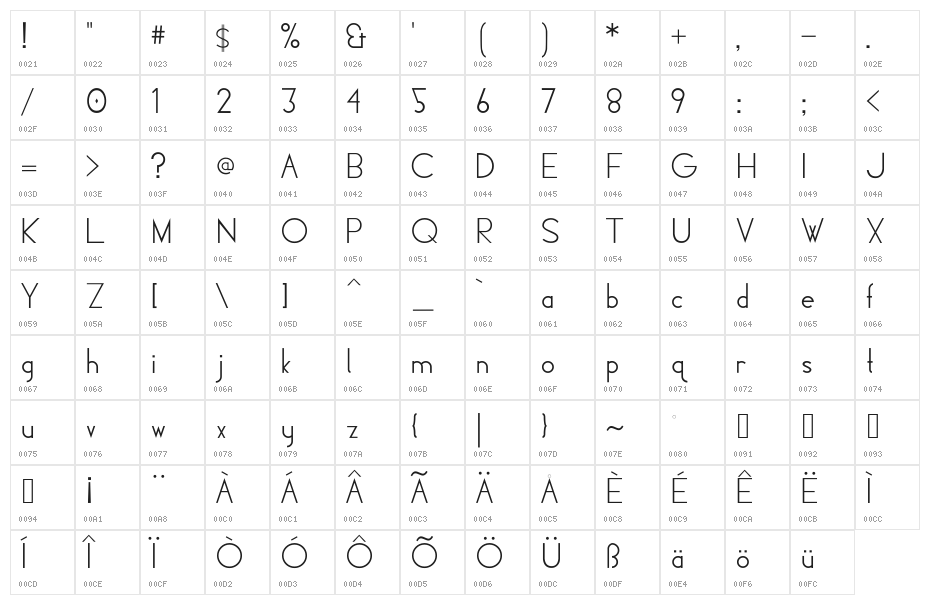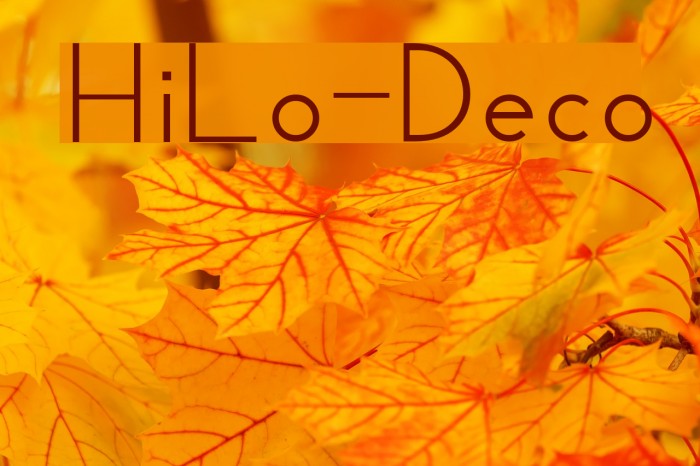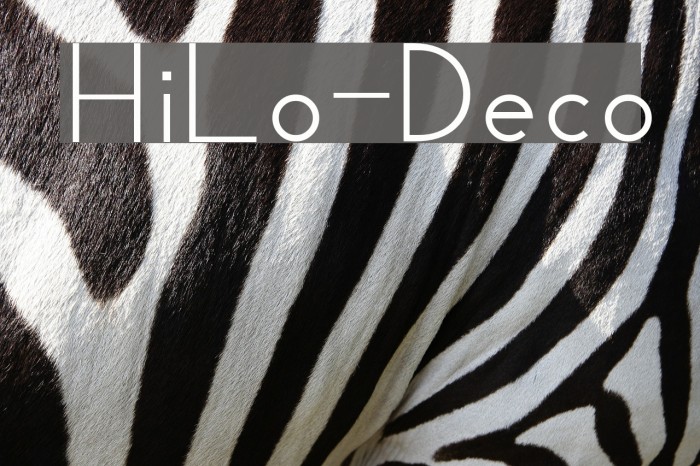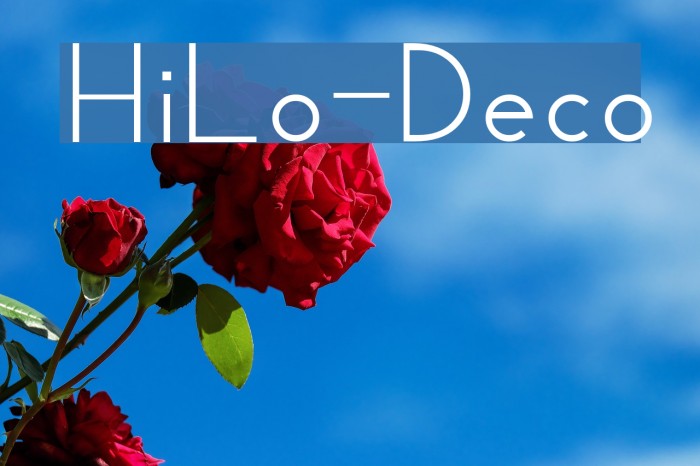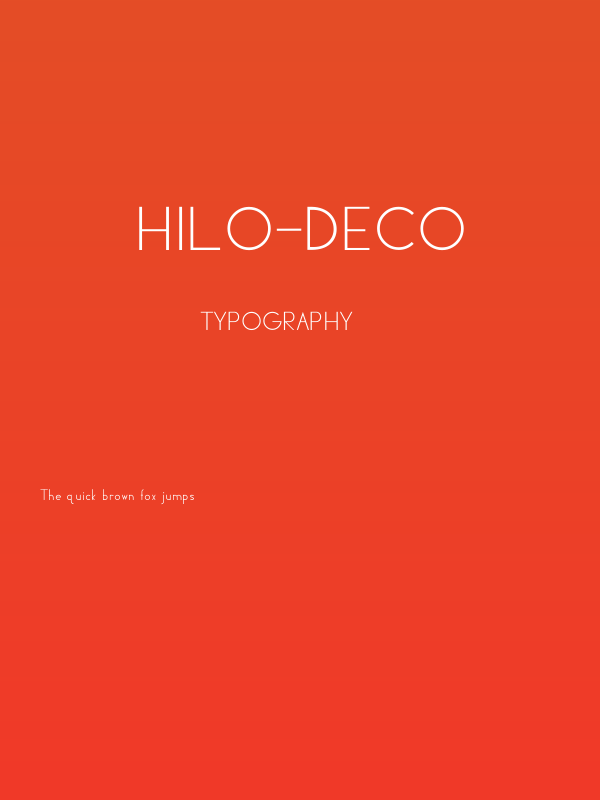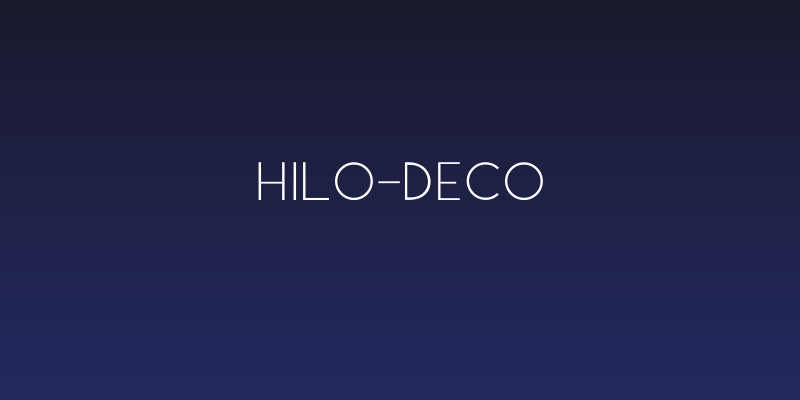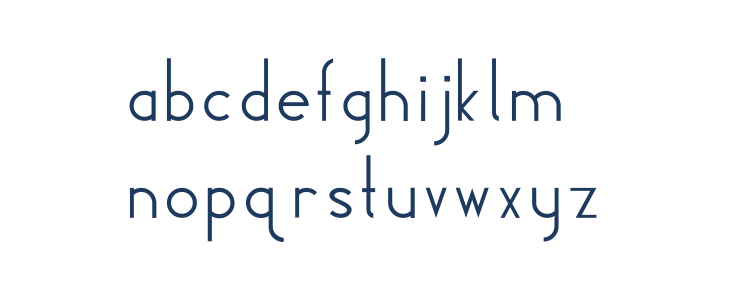
HiLo-Deco Font
HiLo-Deco Description
This font features a clean, geometric design with a modern aesthetic. The uppercase letters are tall and slender, with consistent stroke widths that give a uniform appearance. The lowercase letters maintain a similar style, with rounded edges that add a touch of softness to the overall look. The numerals are distinct and easy to read, matching the style of the alphabet with their geometric forms. Special characters are well-integrated, maintaining the font's cohesive design. The overall impression is one of simplicity and elegance, making it suitable for a variety of design applications.